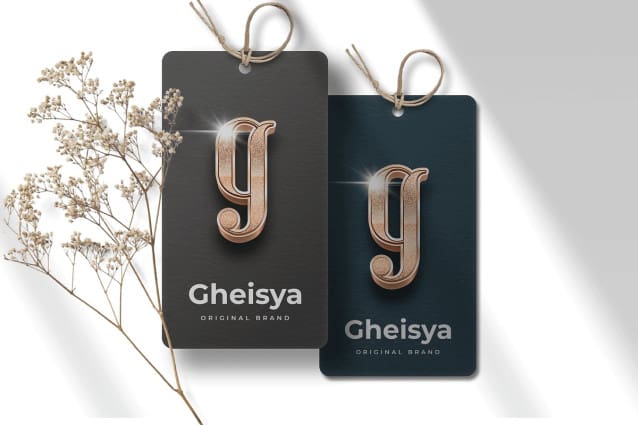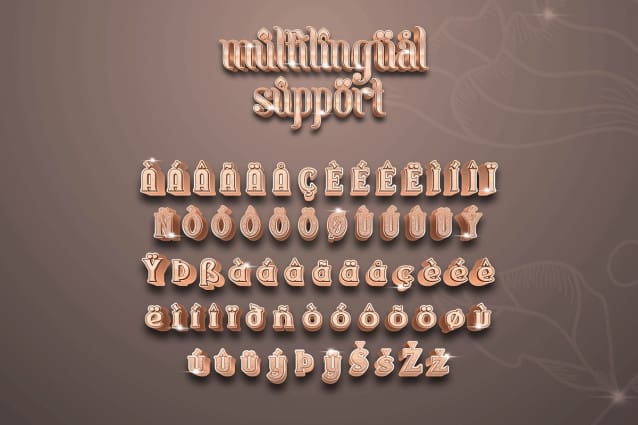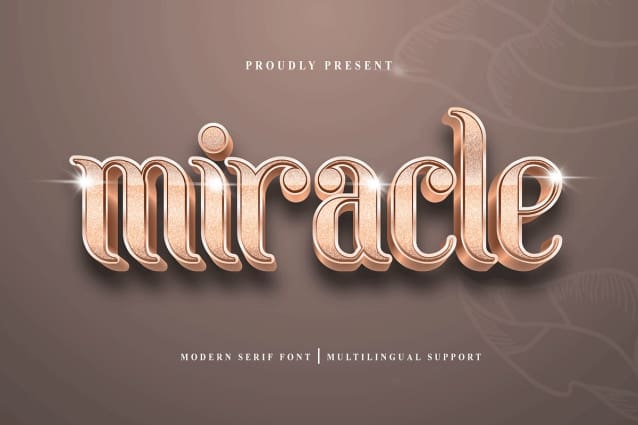
Miracle Font
Miracle Font – Classy Serif Font is one of the fonts that come with a unique, modern, and classic impression. This impression makes this font different from other Serif fonts. Miracle Classy Serif Font has an upright shape and curves in several letters. In addition, Miracle Classy Serif Font looks like a letter arises or resembles two dimensions.
The characters described above make Miracle Font – Classy Serif Font one of the best fonts that have high compatibility when used as equipment at formal events such as wedding parties, birthdays, and fiancees. The use of this font can make a beautifully classic and modern impression.
Miracle Font – Classy Serif Font is a font that is suitable for branding products. It can use on brand tags, shop boards, magazines, etc. An explanation of the use of Thornes’s font shows that Miracle Classy Serif Font can be used as a digital font and printed on the appropriate font size. The reason is supported by font readability.